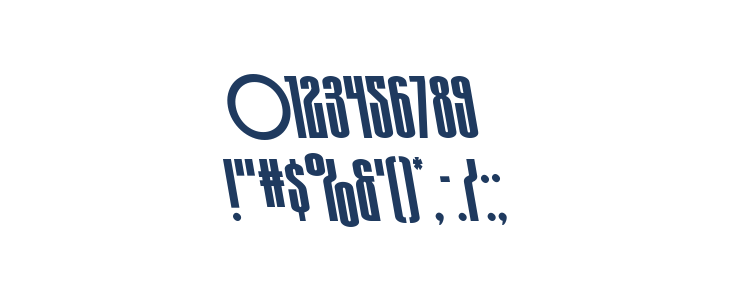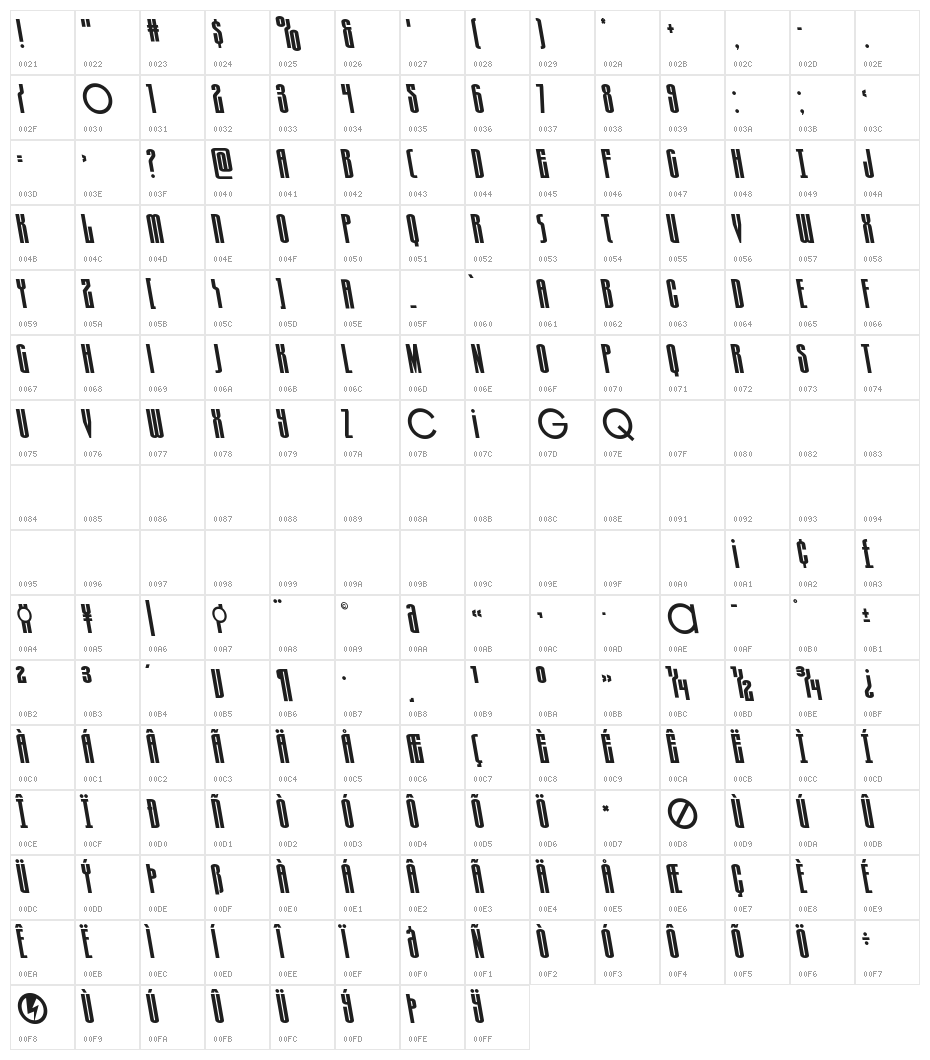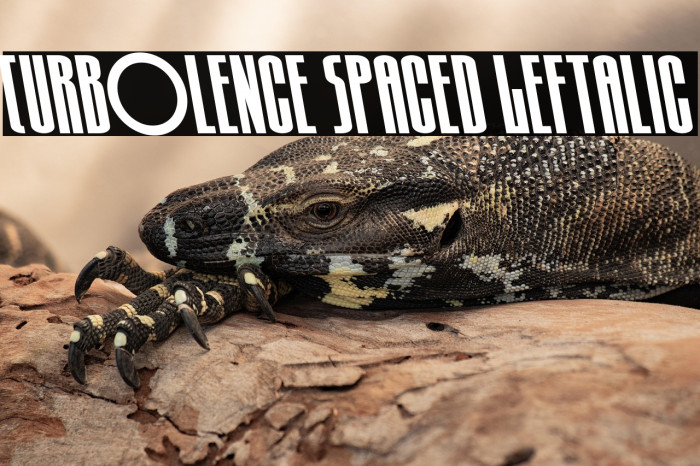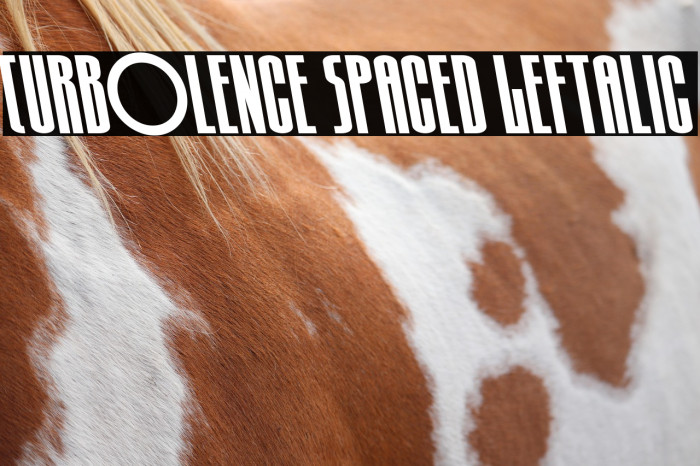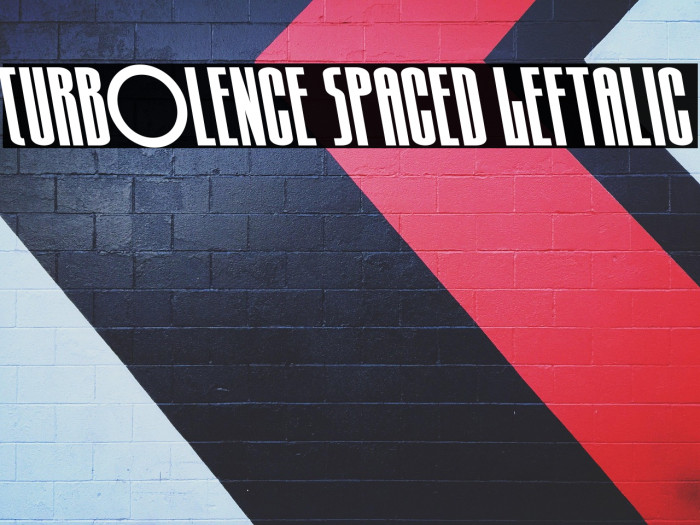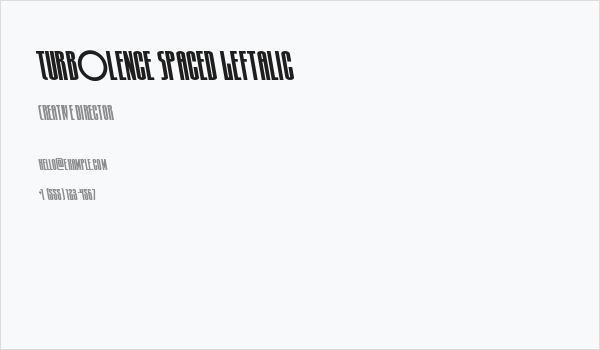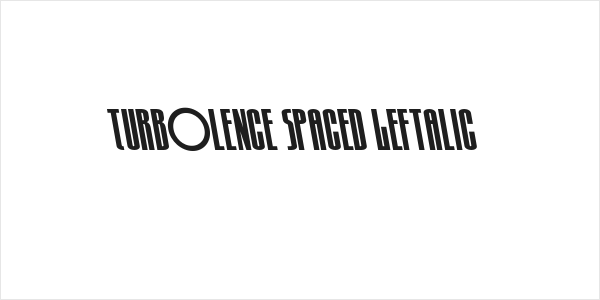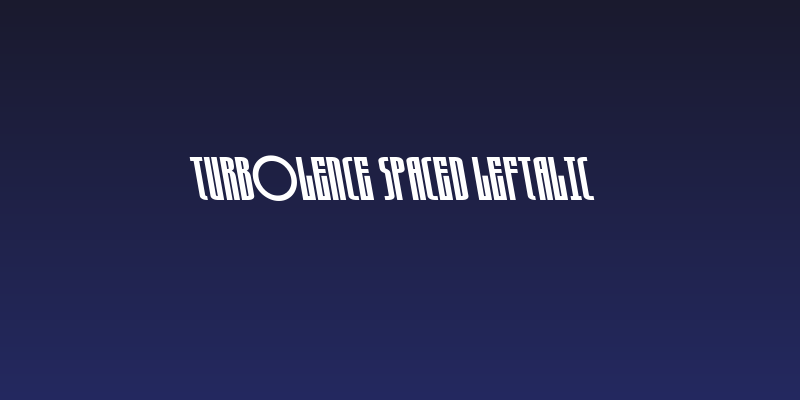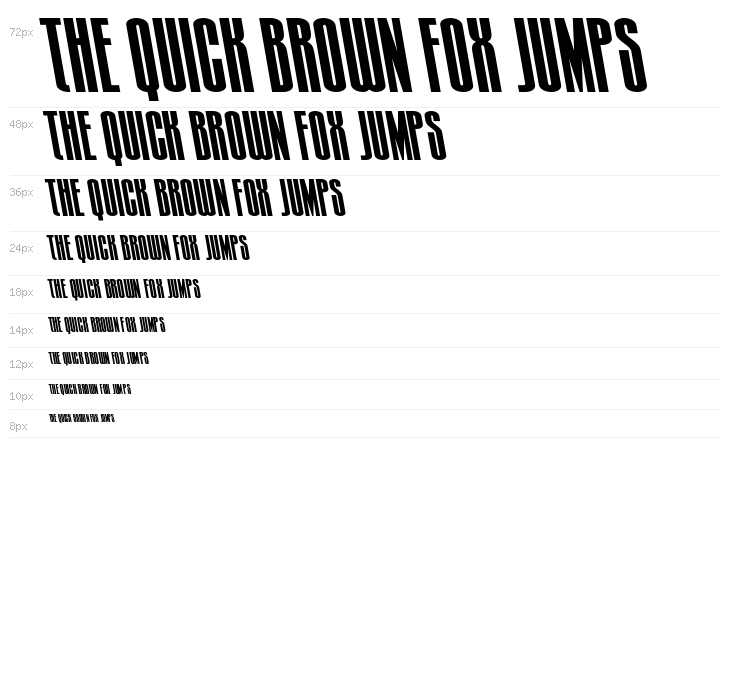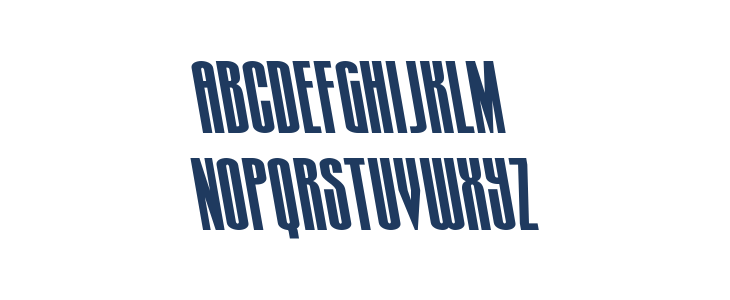
Turb0lence Spaced Leftalic Font
Turb0lence Spaced Leftalic Description
This font features a bold, condensed style with a distinct leftward slant, giving it a dynamic and energetic appearance. The characters are tall and narrow, emphasizing verticality while maintaining a consistent stroke width throughout. The uppercase and lowercase letters share a similar height, enhancing the uniformity of the design. The numbers and special characters are crafted to match the overall aesthetic, ensuring cohesion across all elements. This font's unique style makes it suitable for attention-grabbing designs.
Proposed ProjectsIdeal for posters, logos, and branding projects that require a bold and dynamic look.